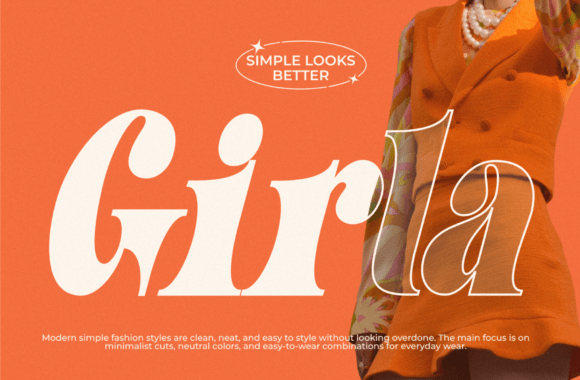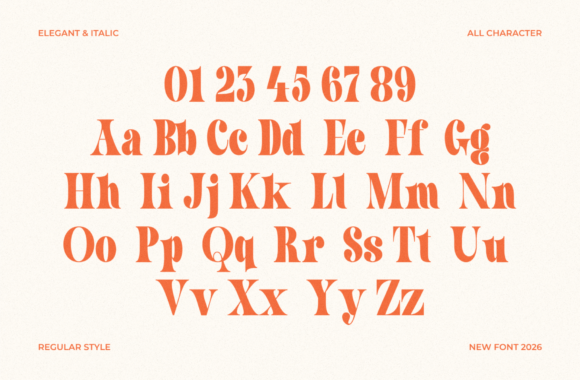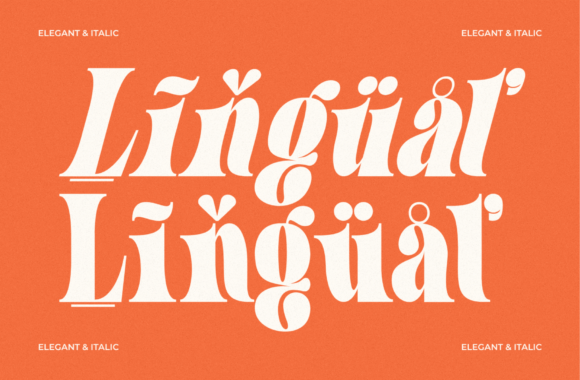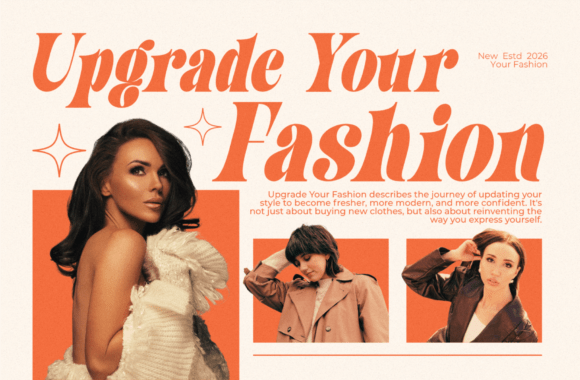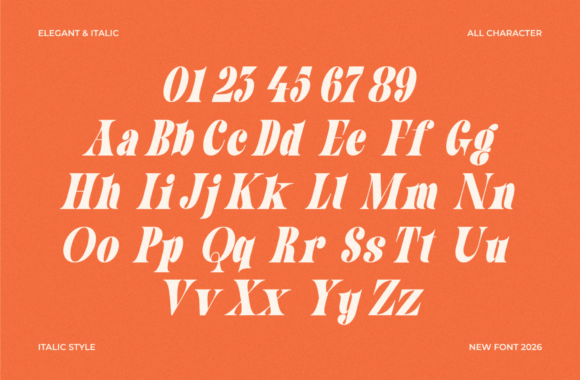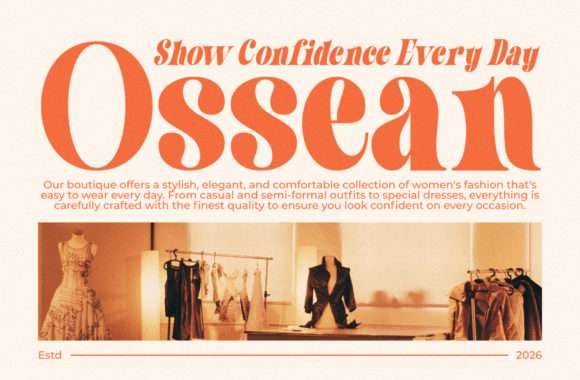
Introduction to Olde Acosai Font
Have you ever found yourself staring at a blank page, eager to bring a creative project to life? The cursor blinks, and your mind is flooded with possibilities. As a designer, you know that the right font can make all the difference. That’s where Olde Acosai Font comes in – a refined and sophisticated serif duo font that exudes timeless elegance and modern style.
With its high contrast strokes, smooth curves, and stylish italic companions, Olde Acosai Font brings a luxurious and graceful feel to any design. Whether you’re working on branding, editorial layouts, or high-end packaging, this versatile font delivers a premium and professional look. As a valuable resource for designers, Olde Acosai Font offers a unique letterform style that stands out in both large headlines and delicate text compositions, giving your projects a distinctive and memorable touch.
Key Features of Olde Acosai Font
- High-quality design with intricate details and ornate flourishes, making it perfect for creative projects.
- Unique and elegant style, making it suitable for a wide range of creative projects, from invitations to branding materials.
- Includes a complete character set, including uppercase and lowercase letters, numbers, and special characters.
Honest Review: Olde Acosai Font
I recently came across the Olde Acosai Font, and I’m excited to share my thoughts on this design resource. Overall, I’m impressed with its high quality and unique aesthetic.
- Unique and creative design: The Olde Acosai Font has a distinct, elegant feel that would be perfect for a creative project.
- Limited language support: The Olde Acosai Font may not be compatible with all languages, which could be a limitation for designers working on international projects.
- Not suitable for all designs: While the font is perfect for creative projects, it may not be the best choice for more formal or professional designs.
Overall, I’m impressed with the Olde Acosai Font’s unique design and high quality. While it may have some limitations, it’s a great design resource for creative projects and can be a valuable addition to any designer’s toolkit.
Getting the Most Out of Olde Acosai Font
To get the most out of Olde Acosai Font, experiment with different font sizes, colors, and styles to create a unique look for your design project. You can also use the font in combination with other design elements to create a cohesive and visually appealing design.
Olde Acosai Font is a versatile design resource that can be used in a variety of creative projects, including invitations, posters, and business cards. Its unique characteristics and transparent background make it an ideal choice for designers looking to add a touch of elegance and sophistication to their designs.